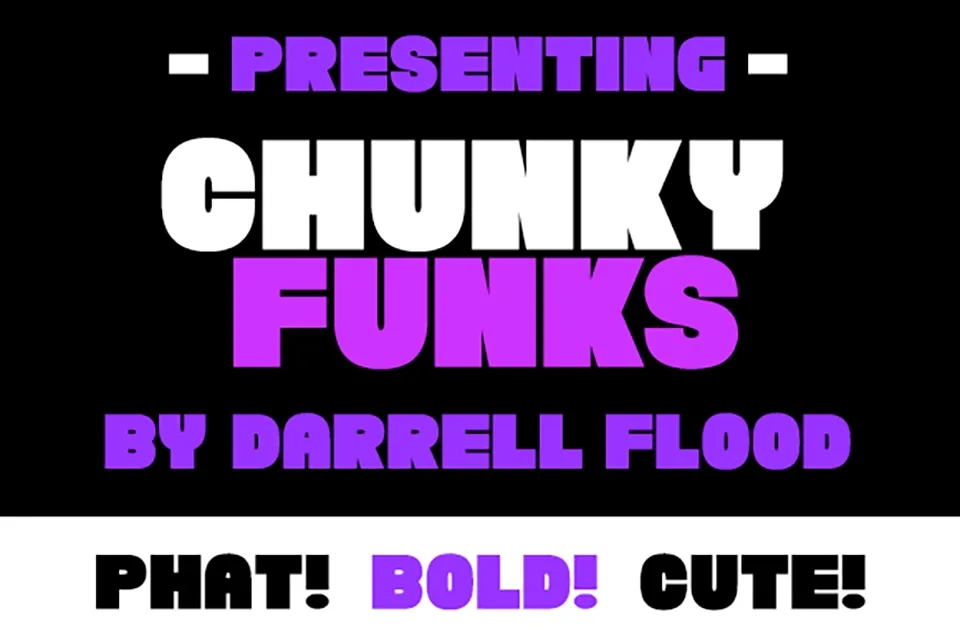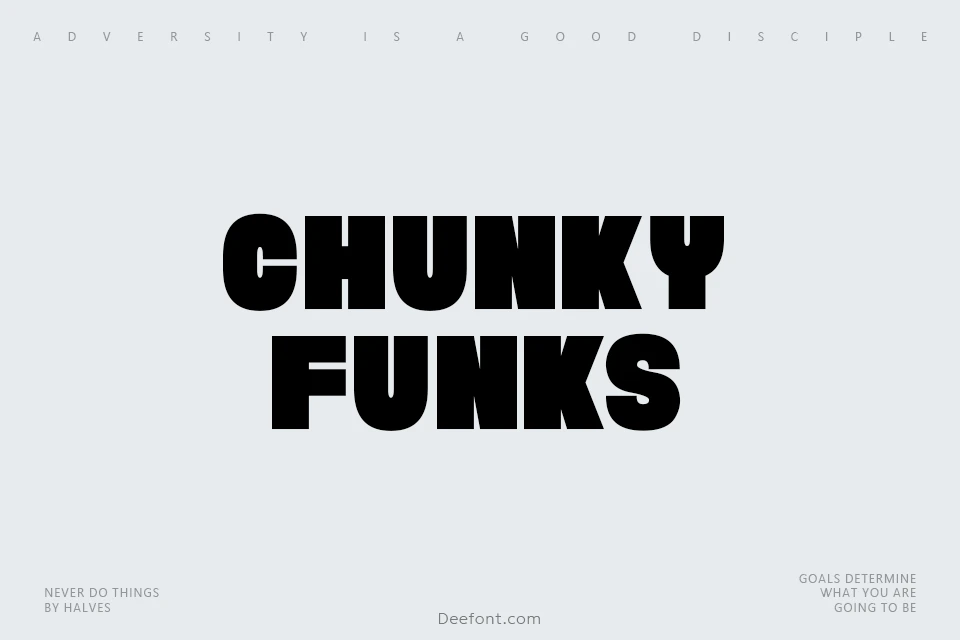
Chunky Funks Font
Chunky Funks Font is a playful, bold, and vibrant display font designed to bring a funky, energetic vibe to your projects. With its chunky letterforms and happy style, it’s ideal for titles, headlines, posters, and any design that needs to stand out with personality. Note that this font supports uppercase letters and numbers only, making it perfect for impactful, attention-grabbing typography.